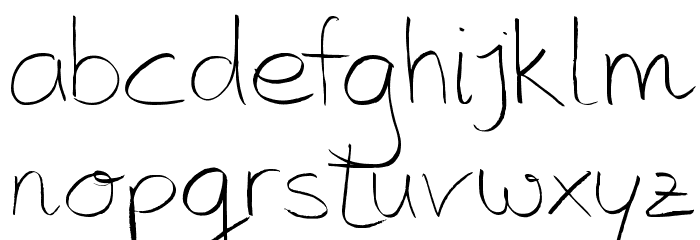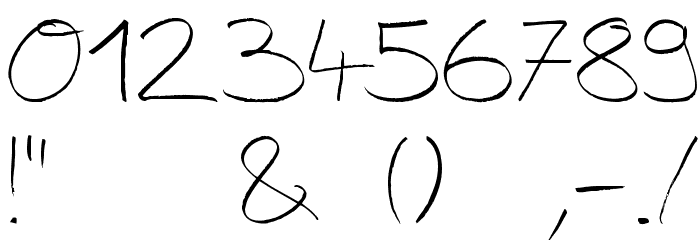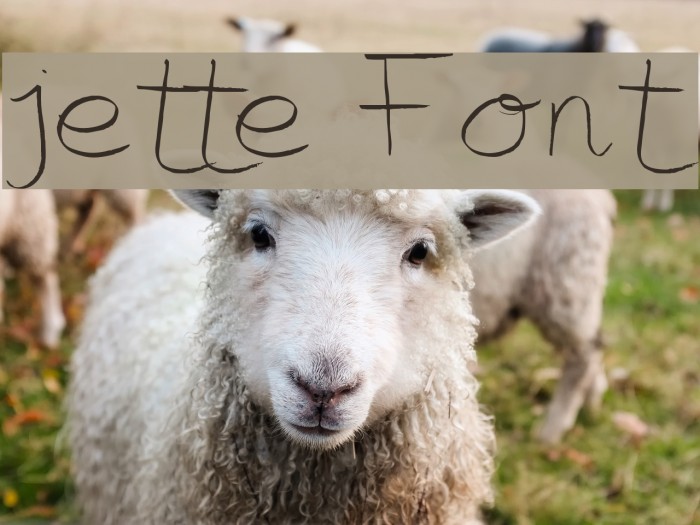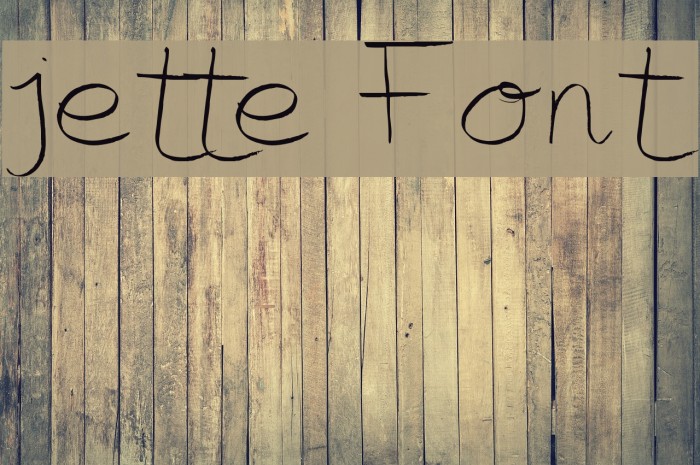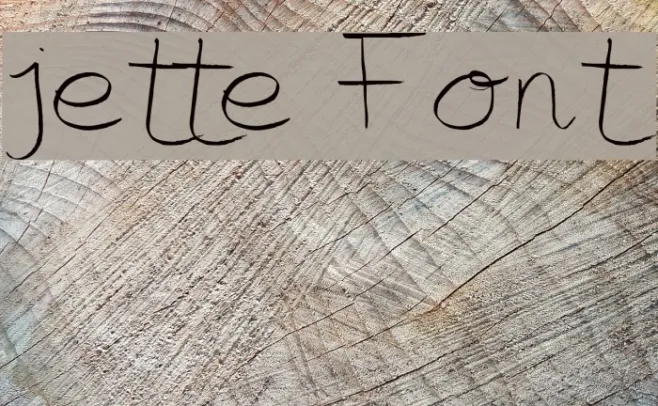
jette Font
This font features a playful and casual handwritten style, characterized by its irregular strokes and organic flow. The uppercase letters are tall and slightly narrow, with a whimsical touch that adds personality. Lowercase letters maintain a consistent style, with some letters like 'g' and 'y' having distinctive loops and tails. The numbers are clear and legible, matching the overall playful aesthetic. Special characters are creatively designed, maintaining the font's unique style. This font is perfect for projects that require a personal, informal touch.
A playful, casual handwritten font with irregular strokes and organic flow.
- Proposed Projects: Ideal for greeting cards, personal invitations, children's books, and creative branding.
- Overall Style: Casual, Playful
- Use Case: Headlines, Informal text, Creative projects